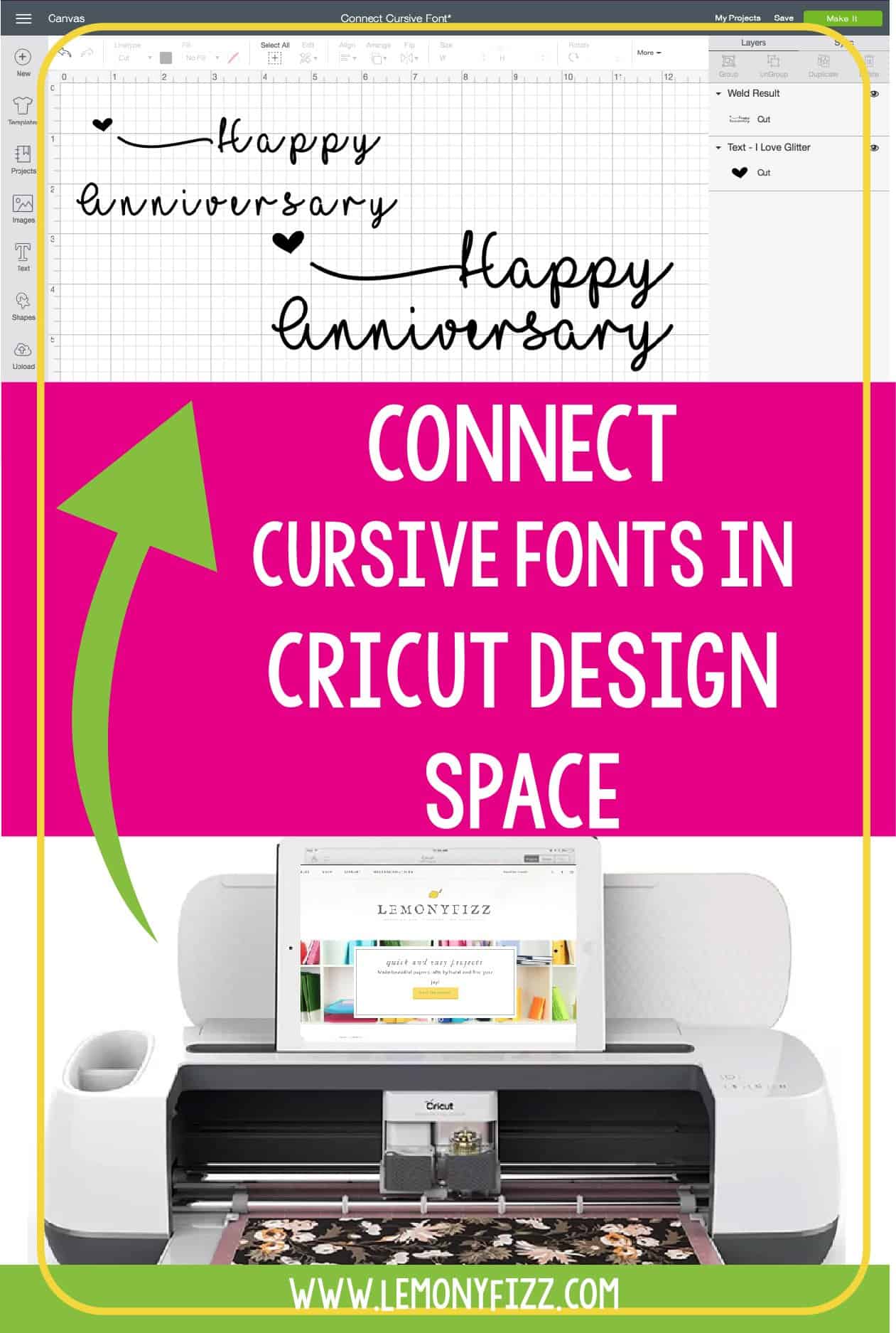
Cool Cricut Cursive Fonts That Connect 2022. The hello honey font is a feminine, modern handwritten typeface that. Web learning curve font is free to use in any private and commercial manner.
In the top menu of design space, you can see a control for letter space. Priscillia pretty cricut script font (ttf, otf) if you prefer thicker. Web we will show you how easy it is to kern your fonts in cricut design space.
Web connect letters with the “letter space” buttons. Web the dingbat font comes with tons of nature doodles that will help you create unique designs. Web we will show you how easy it is to kern your fonts in cricut design space.
Begin By Adjusting The Letter Spacing The First Thing We’re Going To Do Is To Go To “Edit” And Then “Letter Spacing”.
Web looking for cricut cursive handwriting fonts? Letter spacing you can lower the letter spacing to get the letters. Priscillia pretty cricut script font (ttf, otf) if you prefer thicker.
In The Top Menu Of Design Space, You Can See A Control For Letter Space.
Web there are 2 things you can do to connect cursive fonts in cricut design space. Click to find the best 21 free fonts in the cricut connected style. Every font is free to download!
The first thing you want to do is open up cricut design space. Every font is free to download! Web the best way to connect cursive letters is by using the weld feature.